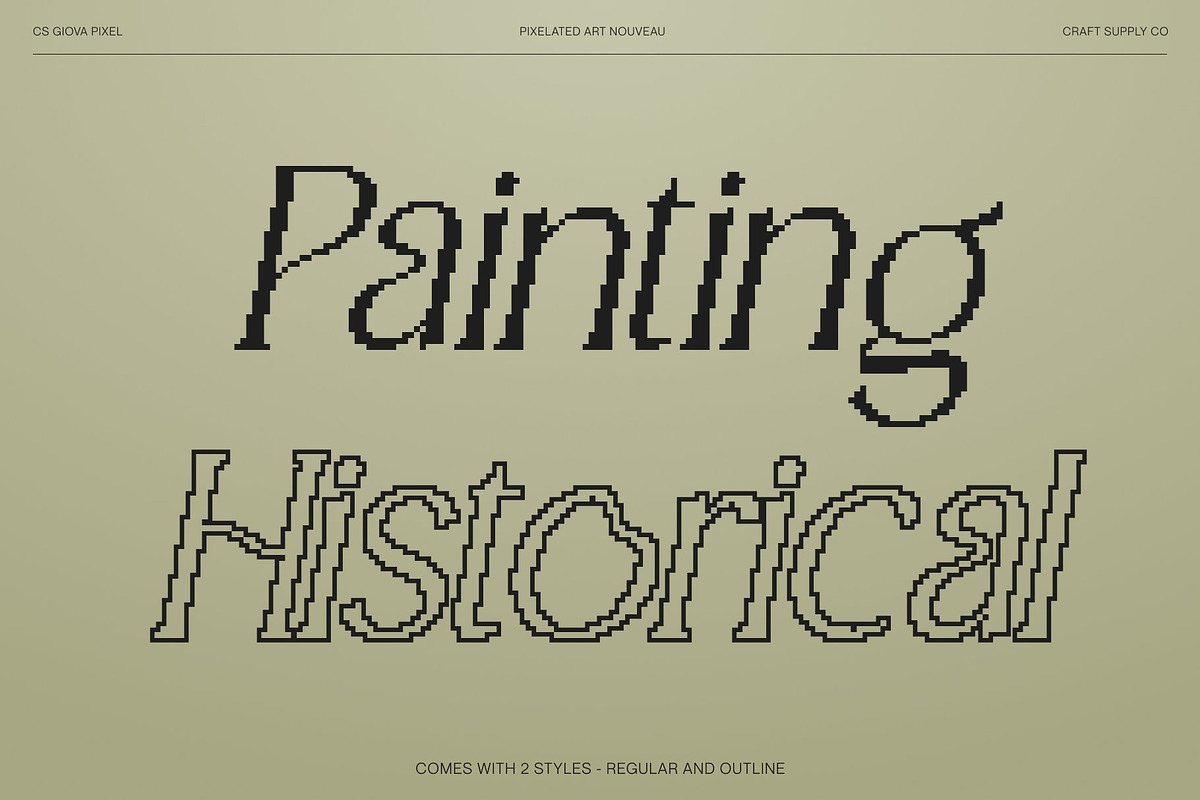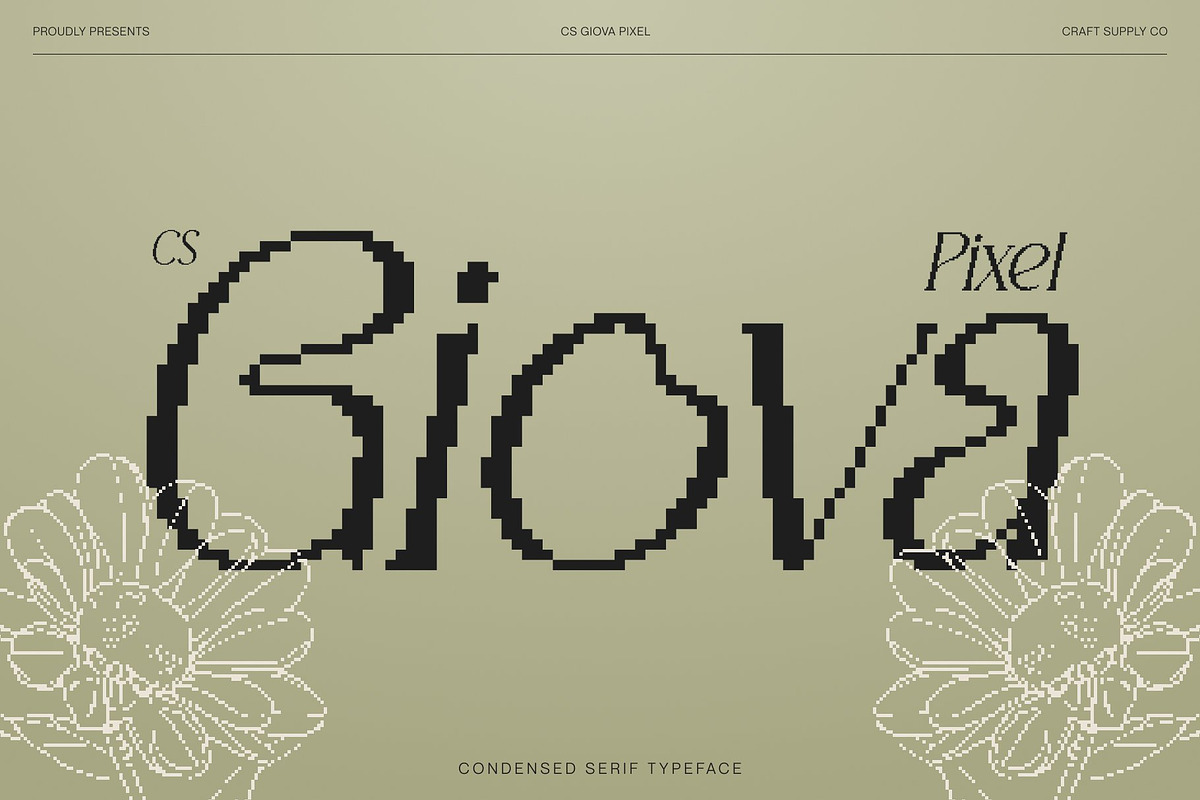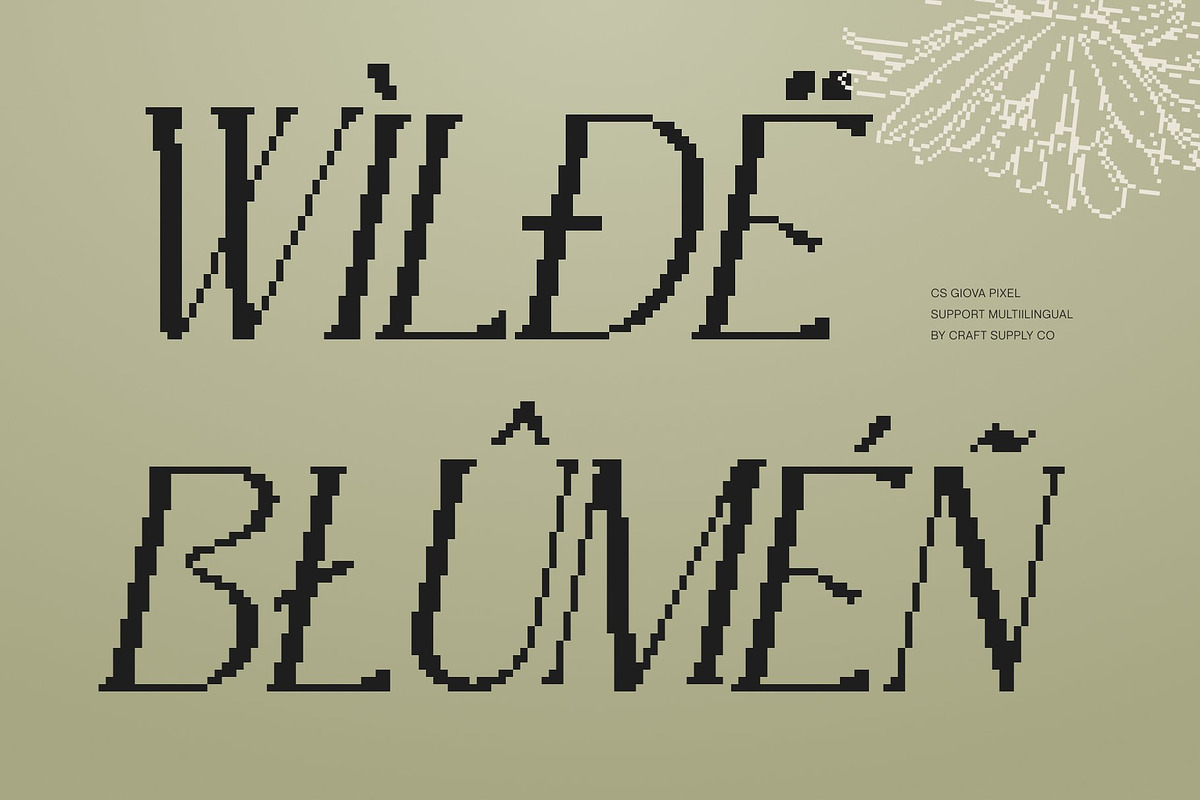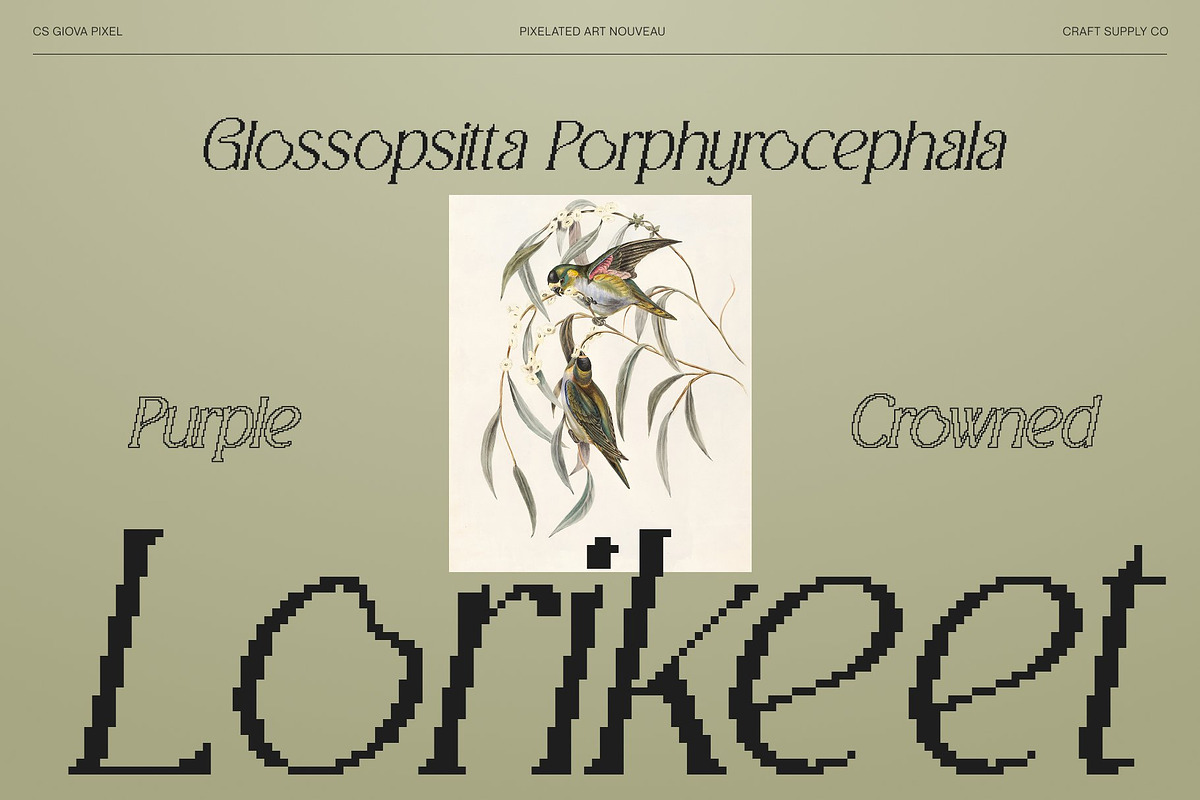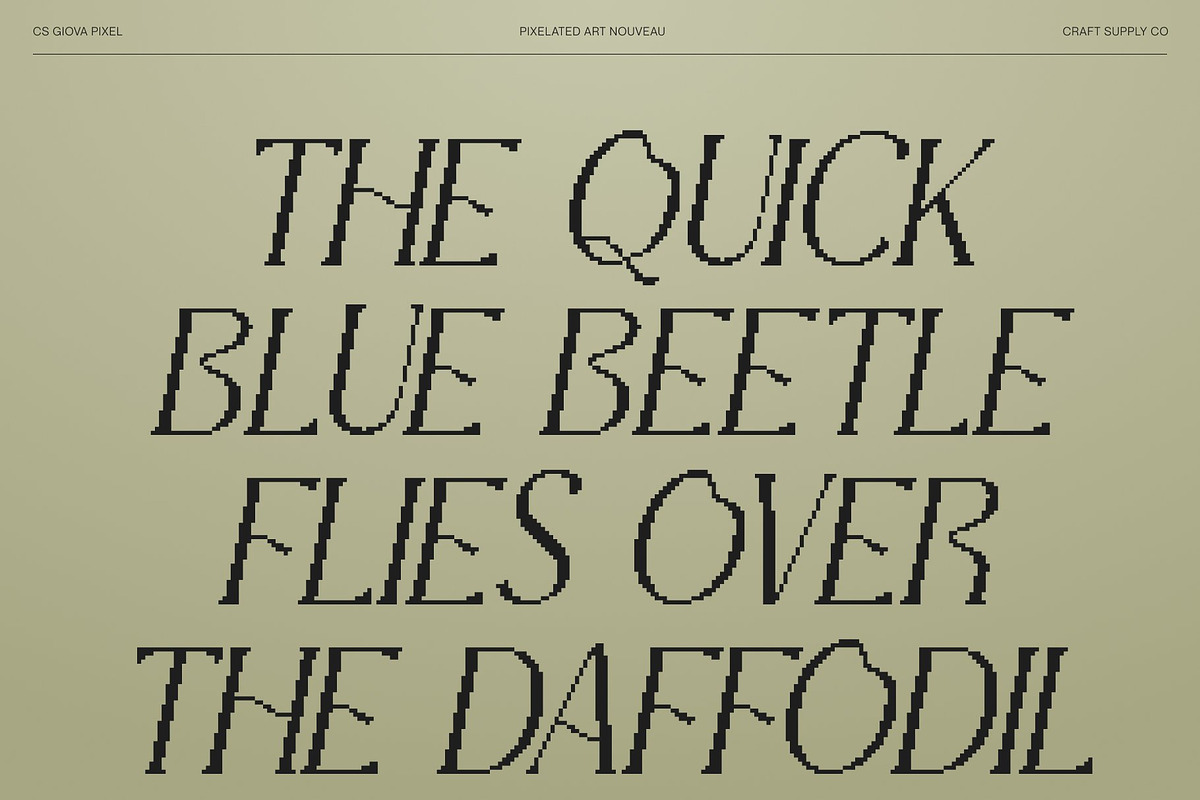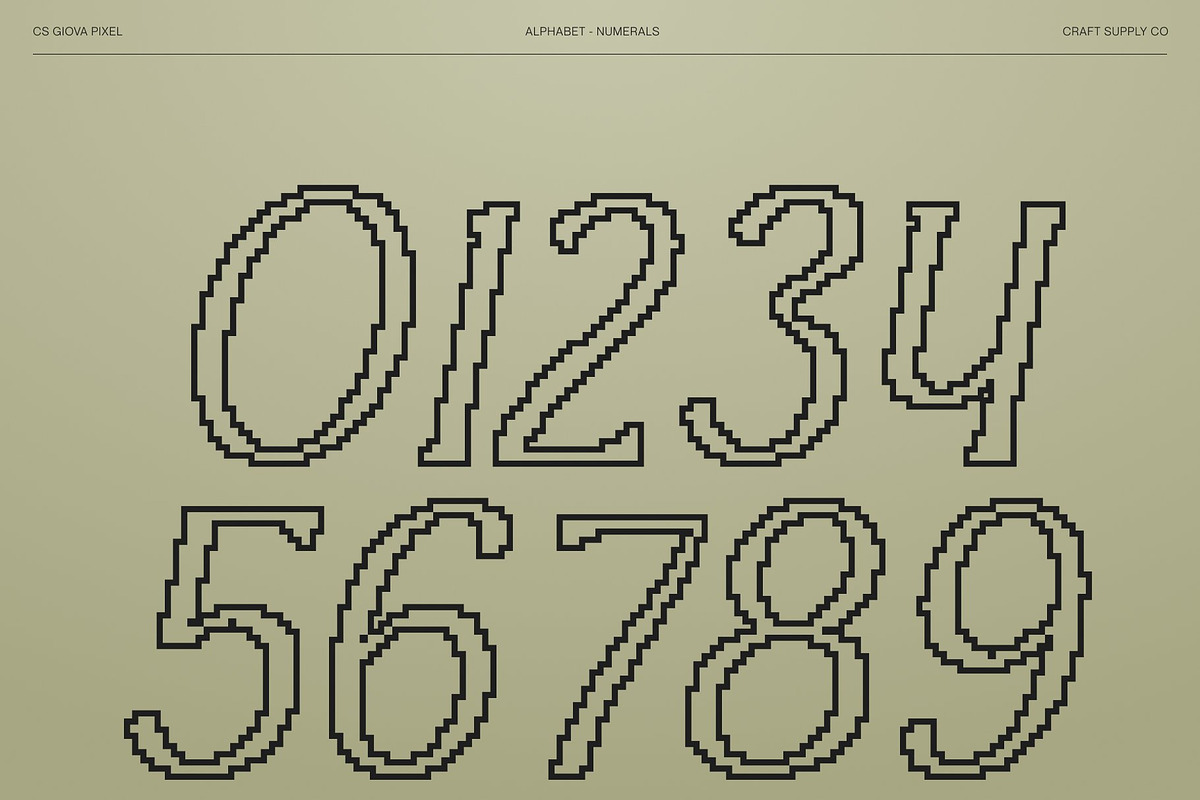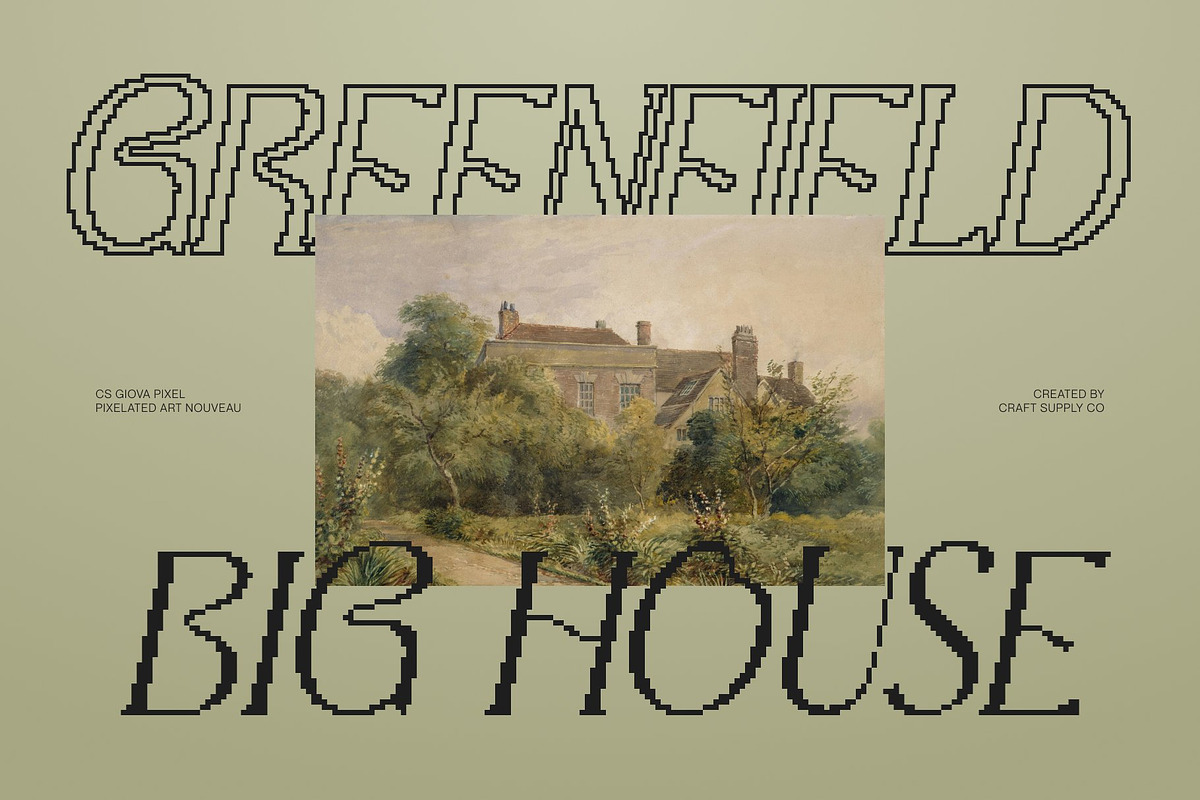
CS Giova Pixel
CS Giova Pixel – Modern Art Nouveau Elegance with Organic Digital Flow
Modern Art Nouveau Pixel Display Font with Refined Character This is a modern Art Nouveau-inspired display font, defined by smooth organic lines and graceful movement, enhanced with subtle pixel precision. Inspired by the flowing aesthetics of classic Art Nouveau and reimagined through a contemporary digital lens, it delivers an elegant, fresh visual presence. Its expressive curves and stylish structure create a sophisticated tone that feels artistic, refined, and visually captivating.
Organic Pixel Forms with Elegant Detail The beauty of lies in its organic letterforms and fluid transitions. Each character is crafted with smooth, natural curves aligned to a refined pixel grid, evoking harmony, balance, and visual artistry. These delicate details add a sense of craftsmanship while maintaining clarity and legibility, making the font ideal for high-impact display use.
Fresh Expression with Contemporary Sensibility Blending decorative elegance with modern refinement, this font feels both timeless and current. Its Art Nouveau influence brings luxury and creativity, while clean pixel execution ensures versatility for contemporary design. The result is a font that is expressive, artistic, and perfect for layouts that value beauty without excess.
Perfect for Editorials, Luxury Branding, and Fashion This font shines in editorial layouts, luxury branding, fashion campaigns, packaging, and premium visual identities. Its elegant display style enhances headlines and key messages with artistic flair, modern sophistication, and subtle digital polish, making every design feel refined and visually memorable.
- CS Giova Pixel Regular
- CS Giova Pixel Outline